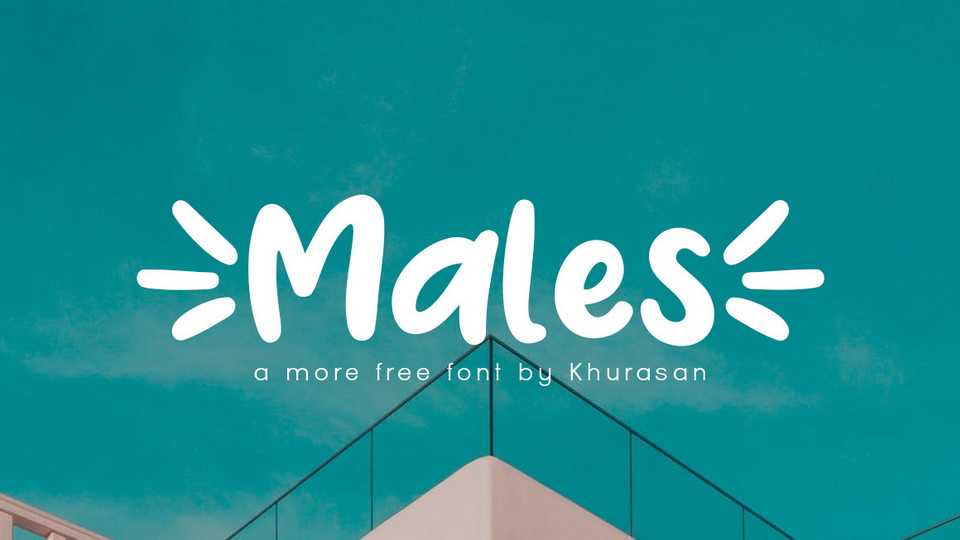
Download Males font, a funny and friendly handwritten typeface. Males font is perfect for posters, logos, magazines, cover books, banners, and much more.